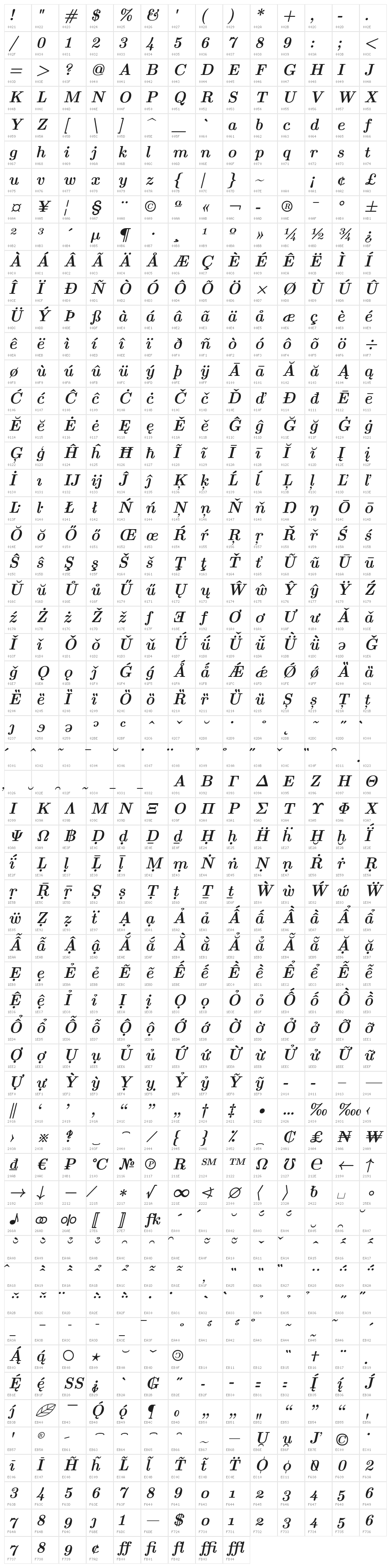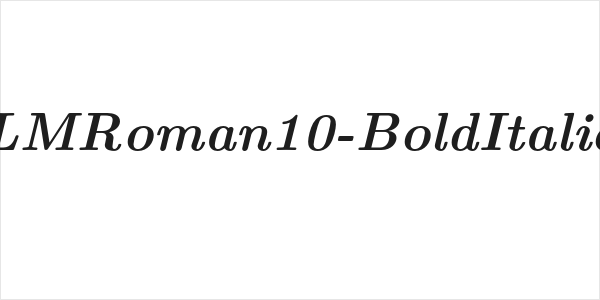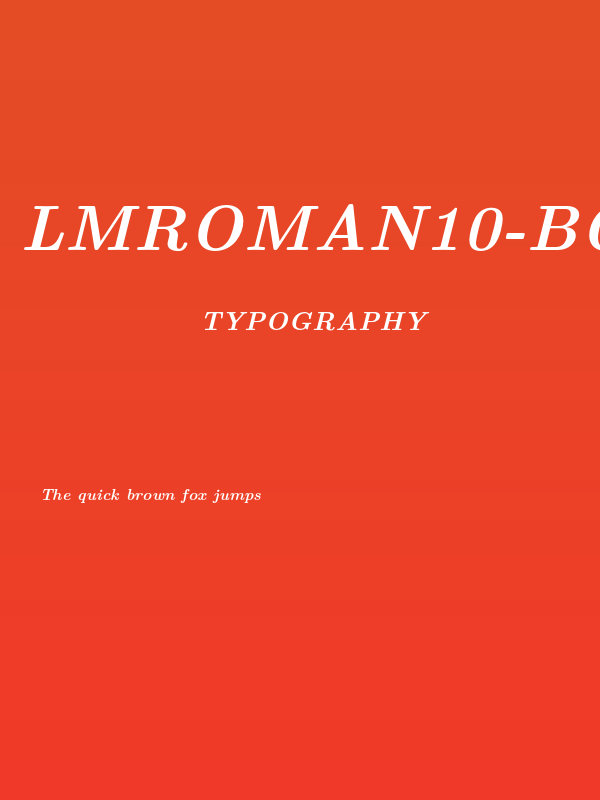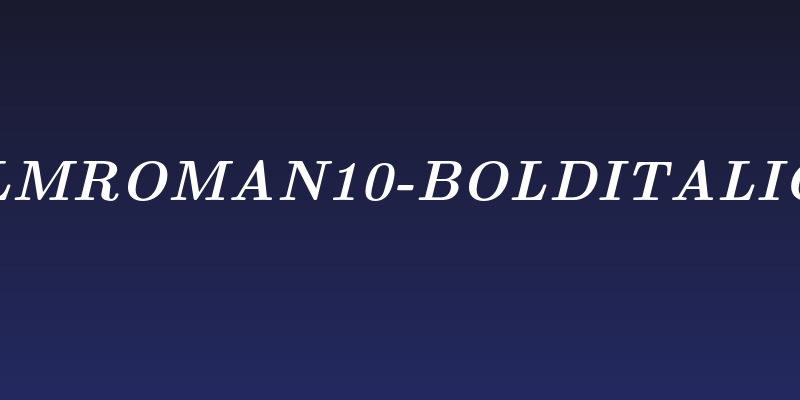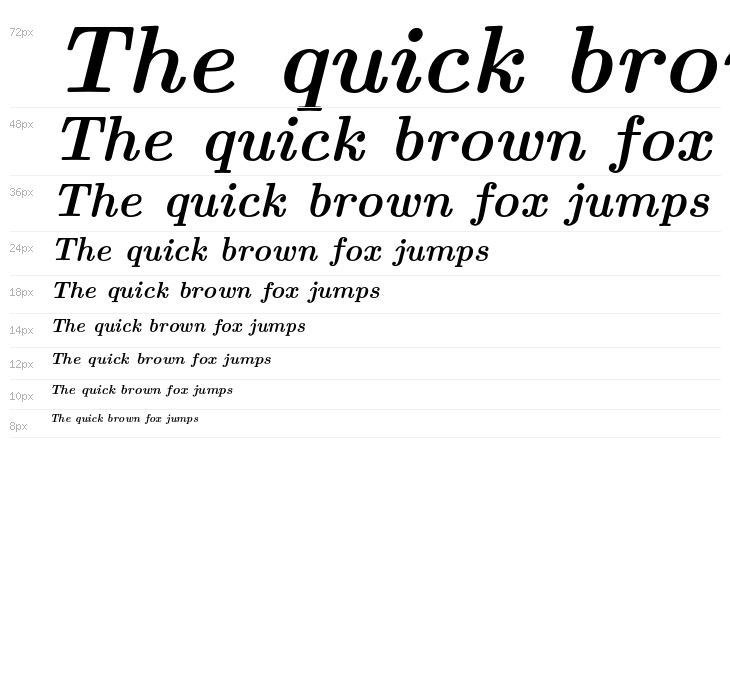
LMRoman10-BoldItalic Font
LMRoman10-BoldItalic Description
This font exhibits a classic and elegant style with a bold and italicized form. The uppercase letters are well-proportioned, featuring a slight slant that adds a dynamic feel. The lowercase characters maintain a consistent flow with smooth curves and a graceful appearance. Numbers are clear and distinct, ensuring readability. Special characters are designed with the same attention to detail, making them blend seamlessly with the rest of the typeface. The overall design is sophisticated, suitable for formal and professional applications.
| Proposed Projects | Ideal for book covers, formal invitations, branding materials, and editorial design. |